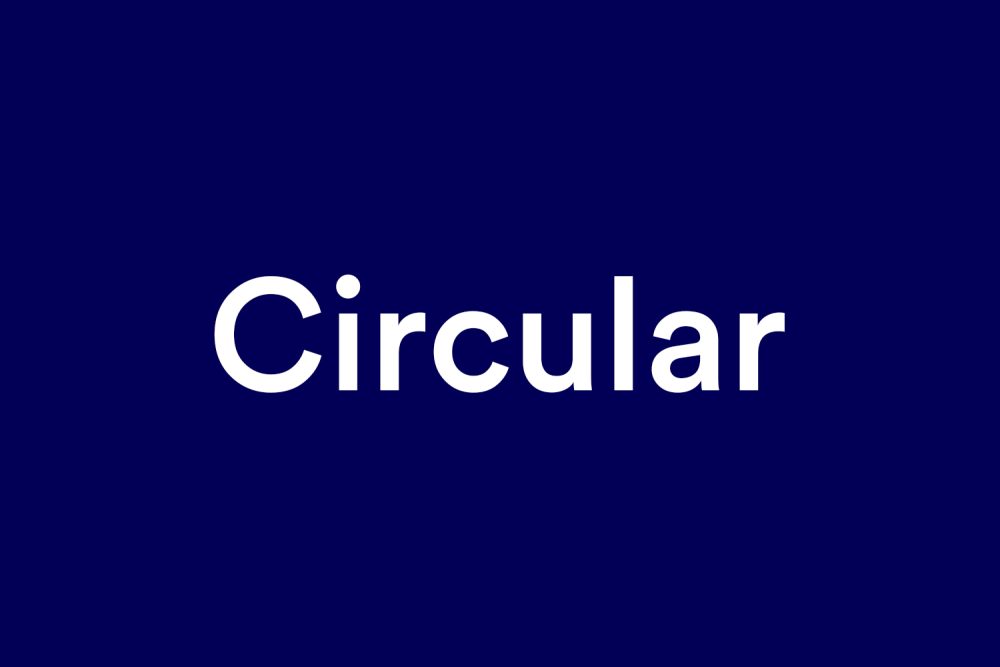
Laurenz Brunner designed Circular for the Swiss foundry Lineto, with early versions tested as far back as 2008 before its 2013 release. It became one of the most recognizable typefaces of the 2010s almost overnight after Spotify adopted it for their 2015 rebrand, and it’s since shown up across SoundCloud, Airbnb-adjacent branding, and countless startup style guides. There’s an unusual wrinkle with Circular specifically: Lineto doesn’t sell it through MyFonts, Adobe Fonts, or any of the major marketplaces — licensing goes directly through Lineto’s own site, which is exactly the kind of friction that sends people searching for a free alternative in the first place. If you’ve been searching for free alternatives to circular, this list is built exactly for that.
Poppins
Poppins’ perfectly circular bowls and rounded terminals land closest to Circular’s own soft geometry of anything on Google Fonts — reach for it first if you want the general vibe without hunting further.
Nunito Sans
Less overtly geometric than Poppins but sharing Circular’s soft, approachable roundness, Nunito Sans holds up better than a purely geometric face at body-text sizes.
Sora
A newer addition to Google Fonts with the same rounded-but-current feel that made Circular a default for tech branding, Sora works well anywhere the brief calls for ‘looks like a 2020s tech startup.’
Figtree
Drawn with UI use specifically in mind, Figtree’s rounded but controlled letterforms suit an app or product interface the way Circular so often does in the wild.
Manrope
Manrope’s tighter spacing and slightly geometric skeleton give it a current, considered feel close to Circular’s own — a solid pick when a project needs to read as modern without leaning fully rounded like Poppins.
Quick Comparison
| Font | Style | Best For |
|---|---|---|
| Poppins | Geometric sans (rounder) | Closest all-around match |
| Nunito Sans | Rounded humanist sans | Warm, readable body text |
| Sora | Geometric-rounded sans | Modern tech and SaaS branding |
| Figtree | Geometric-humanist sans | UI and product interfaces |
| Manrope | Modern geometric-ish sans | Tight, contemporary branding |
Frequently Asked Questions
Why isn’t Circular available on MyFonts or Adobe Fonts?
Lineto has always distributed its catalog exclusively through its own site rather than third-party marketplaces — a deliberate choice by the foundry, not a sign the font was pulled or discontinued.
Is Poppins really a close match to Circular?
Close enough for most everyday use — both share soft, rounded geometric letterforms — though a trained eye will notice Circular’s proportions are slightly more restrained and less bubbly than Poppins at heavier weights.
Is it true Spotify eventually moved away from Circular?
Spotify’s 2015 rebrand made Circular famous, and the brand has continued to evolve its own typography over the years since — a common pattern for companies that outgrow a licensed typeface and move toward a custom or in-house alternative as their brand matures.